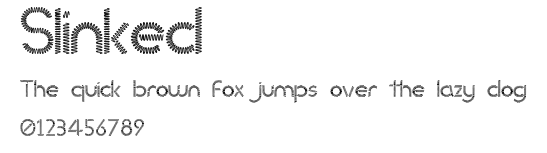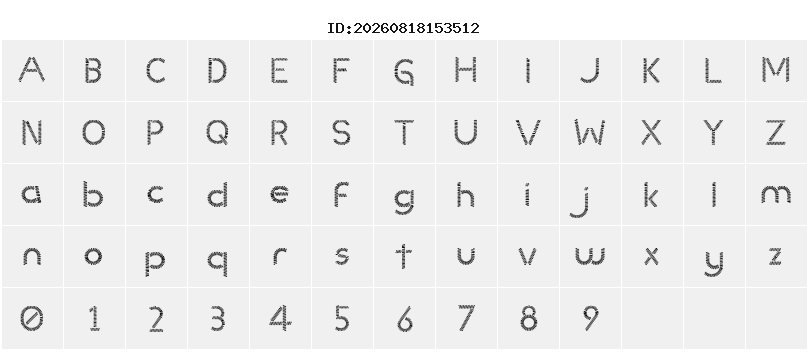
• Font Name: Slinked
About Slinked .ttf
Slinked .ttf is a modern, elegant sans-serif font designed for ultimate readability and visual harmony. Perfect for branding, headlines, web design, and print materials.